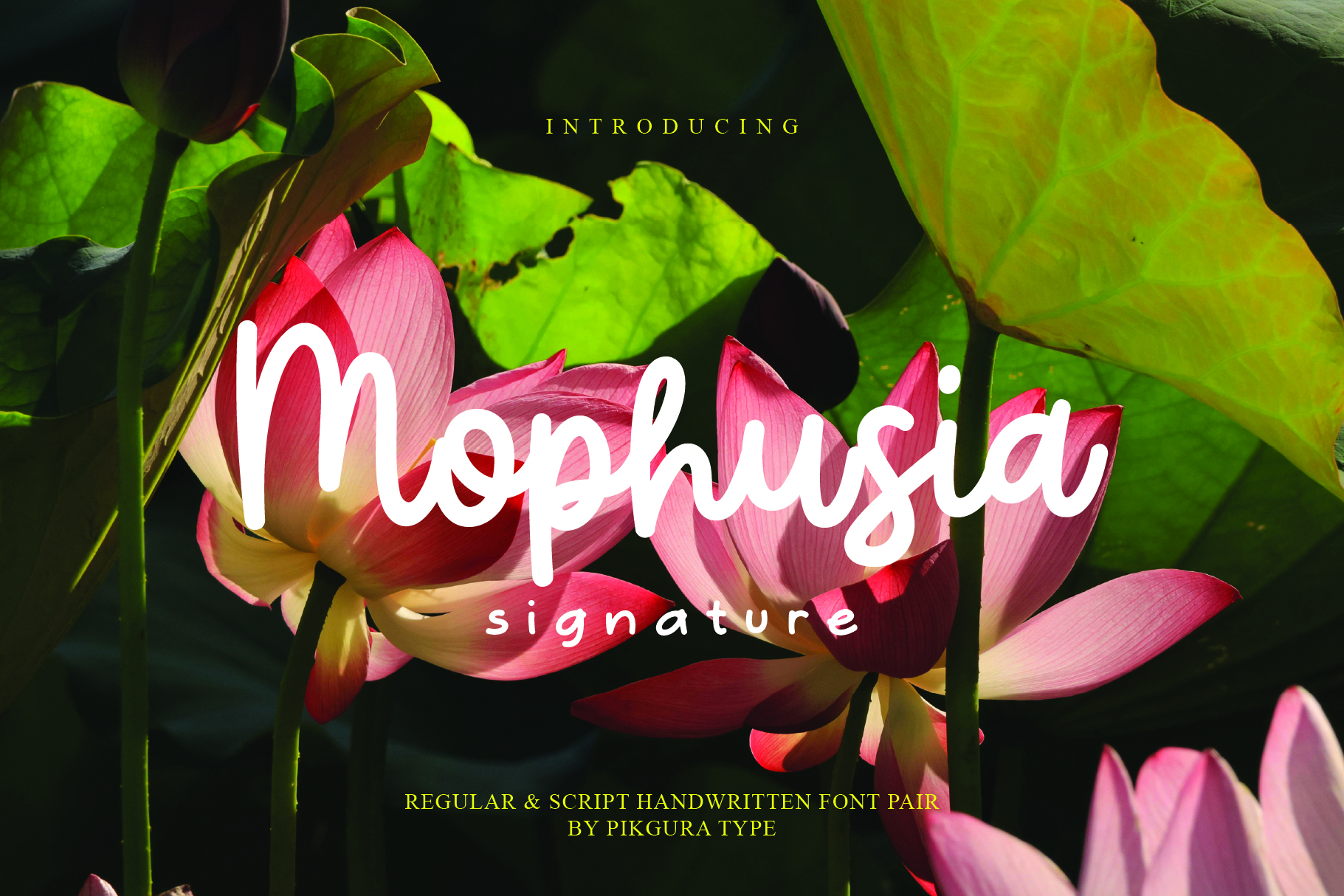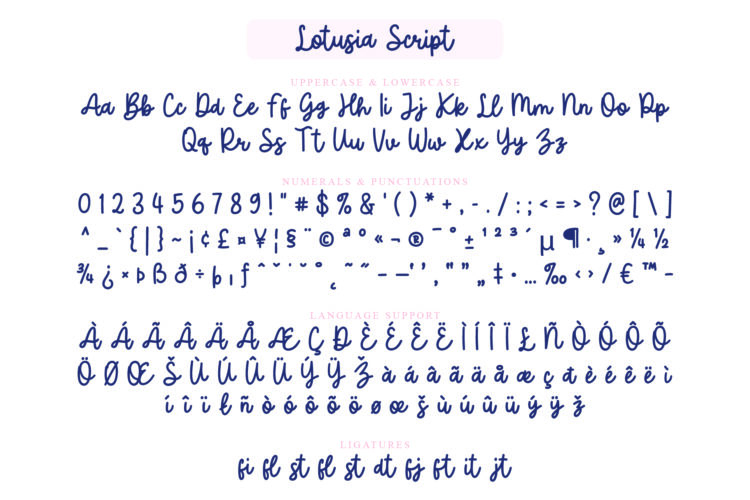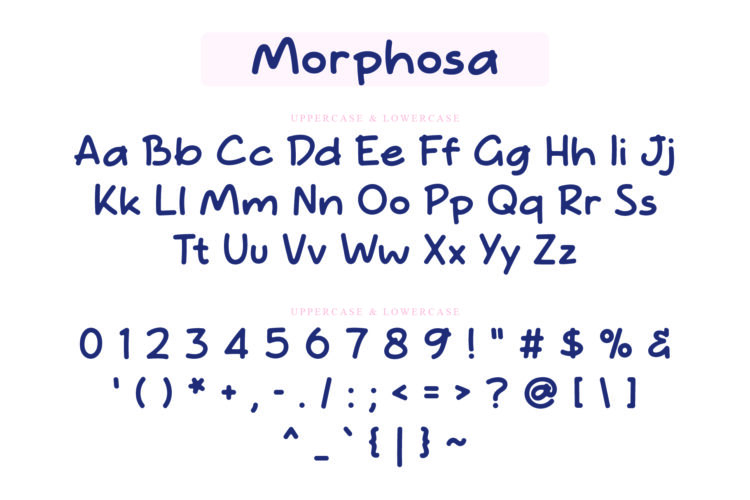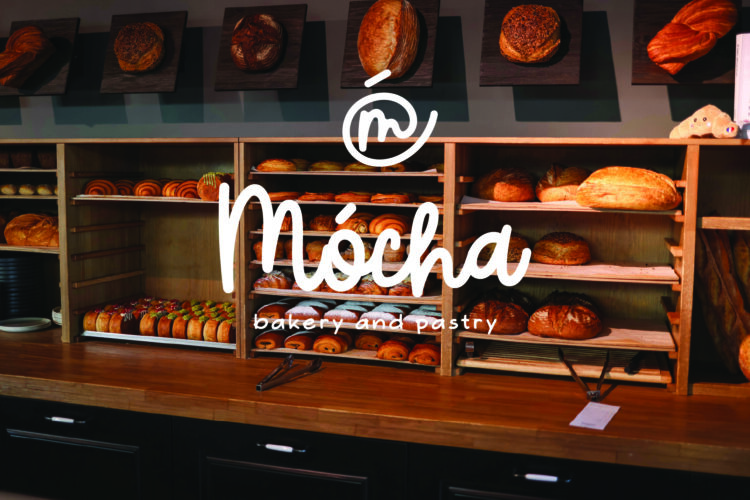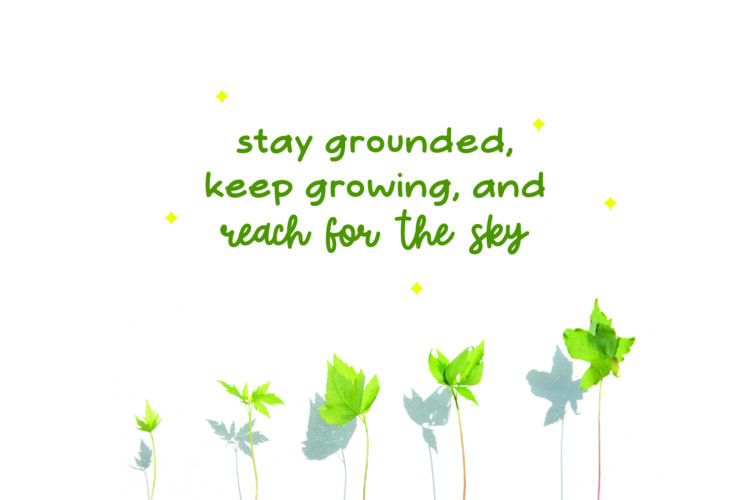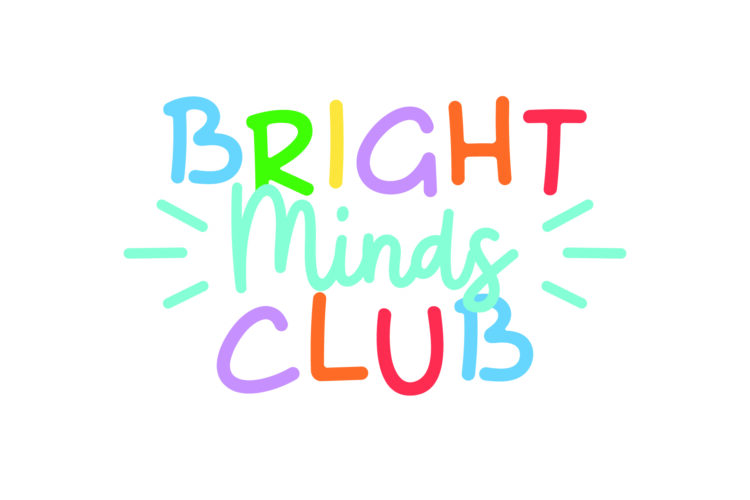
Mophusia is an adorable and playful font pair designed to bring joy and personality to your designs. This fun combination blends a friendly handwriting font with a lively handwritten script, creating a cheerful and expressive look.
Morphosa, the handwriting font, is playful, friendly, and easy to read. It includes a full alphabet, numbers, and basic symbols. Morphosa works great for cute branding, kids designs, packaging, quotes, stickers, and any project that needs a warm and casual feel.
Lotusia Script, the handwritten script font, is fun and playful with smooth flowing strokes. It comes with a full alphabet, numbers, basic symbols, and ligatures. Lotusia Script adds movement and charm, making it perfect for logos, invitations, social media posts, and creative accents.
Mophusia | Font Pair